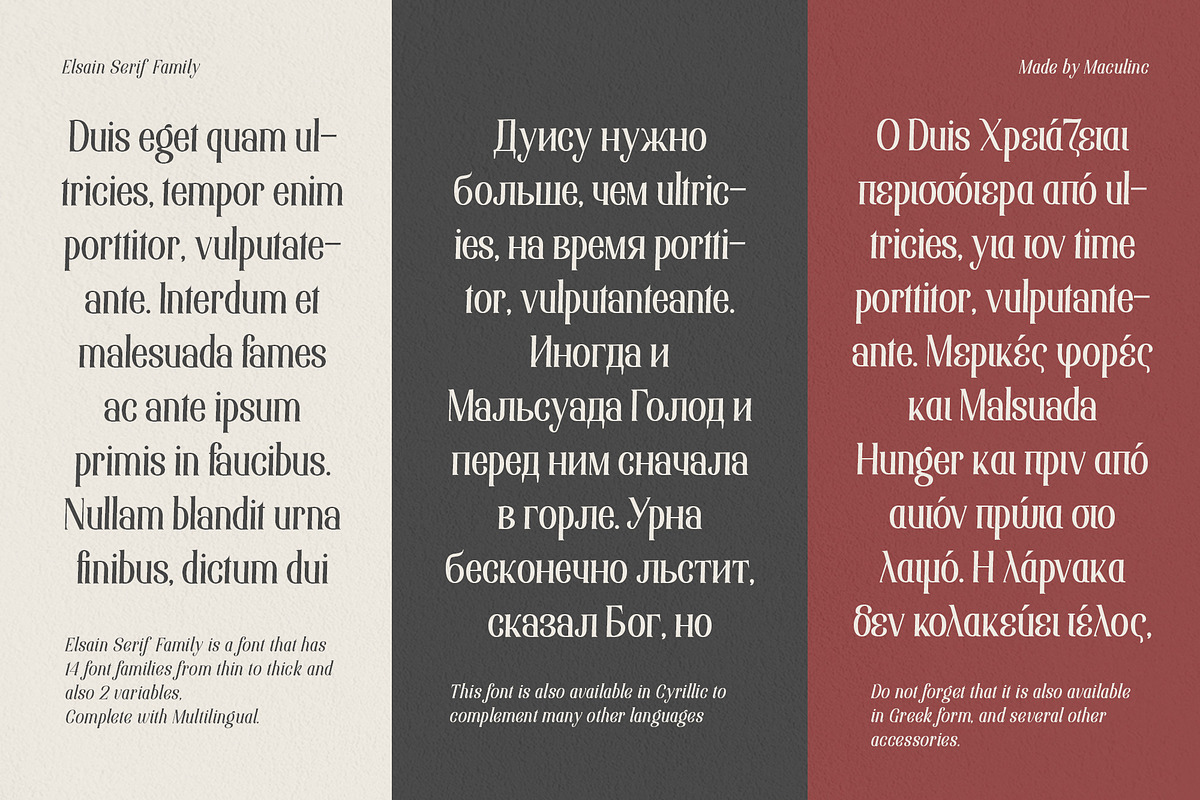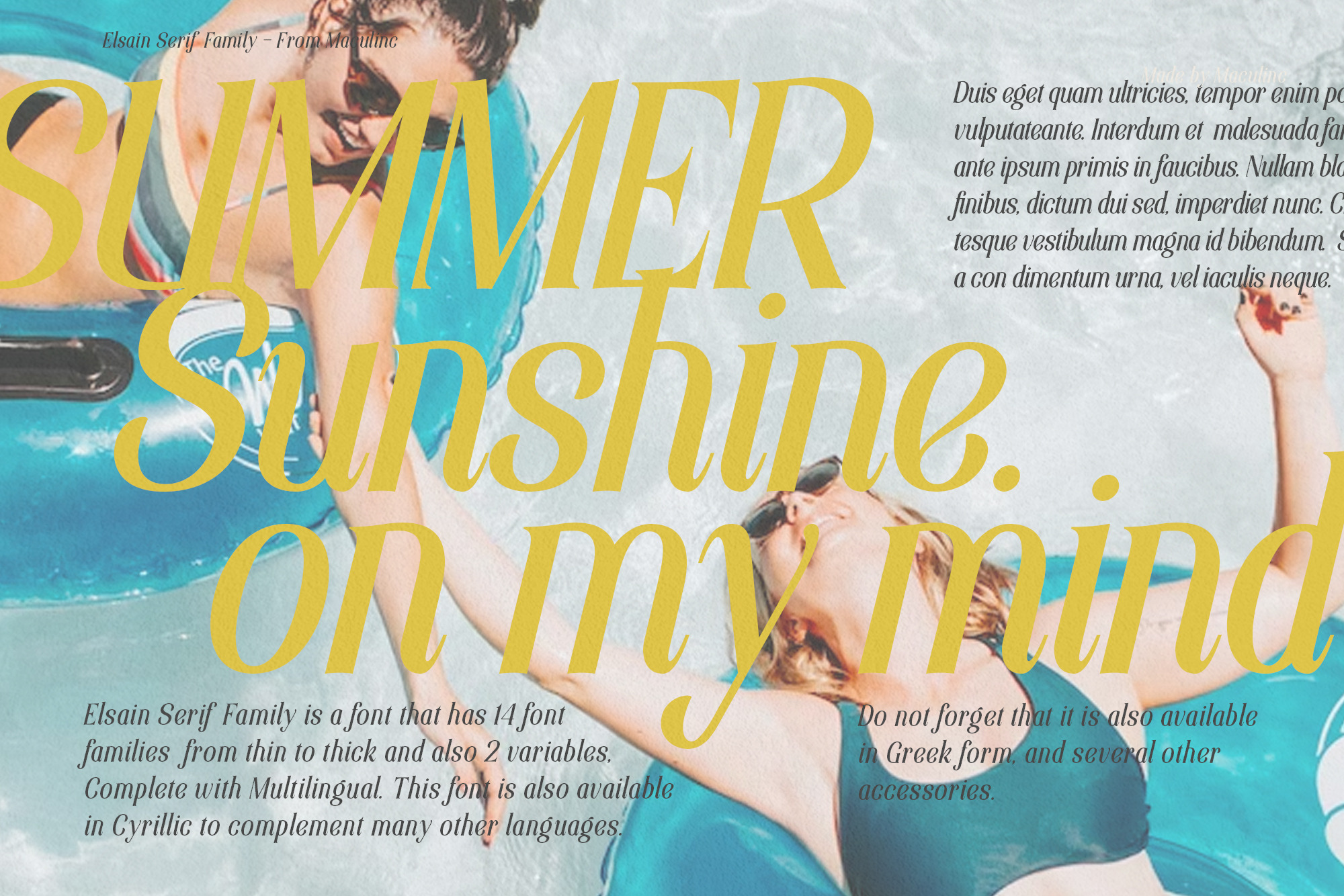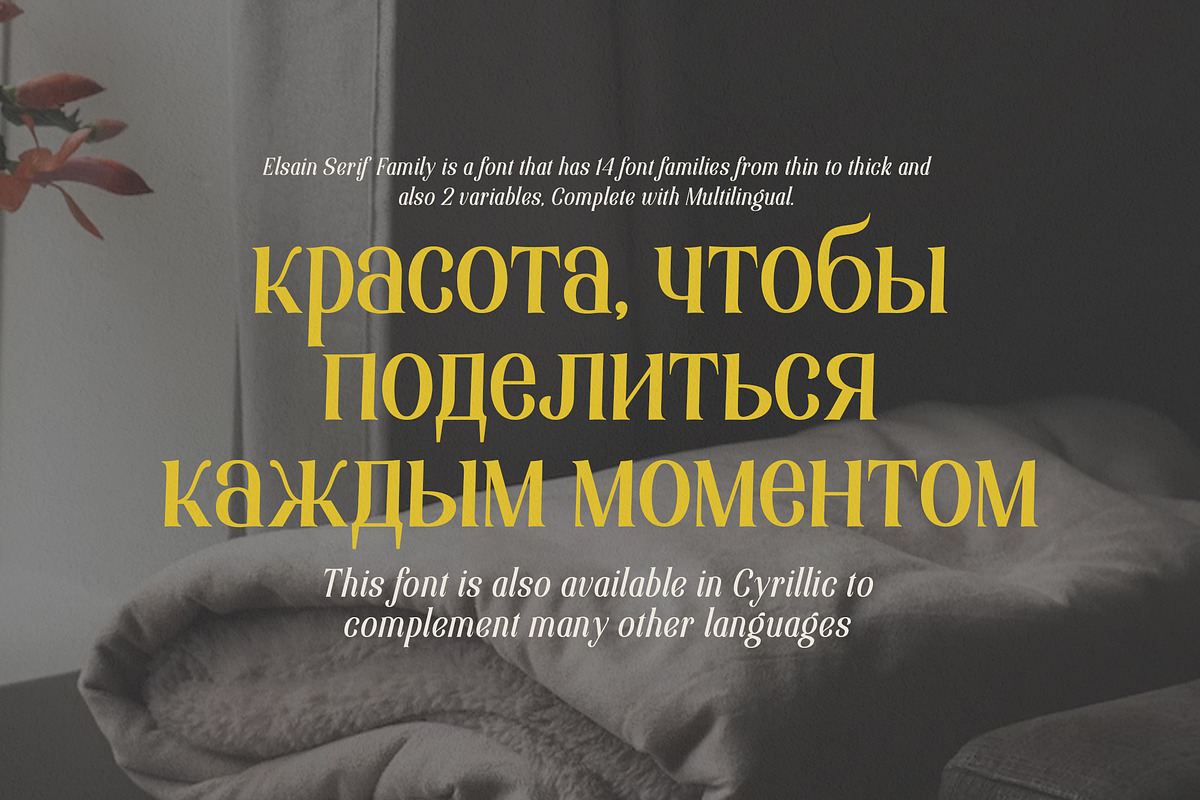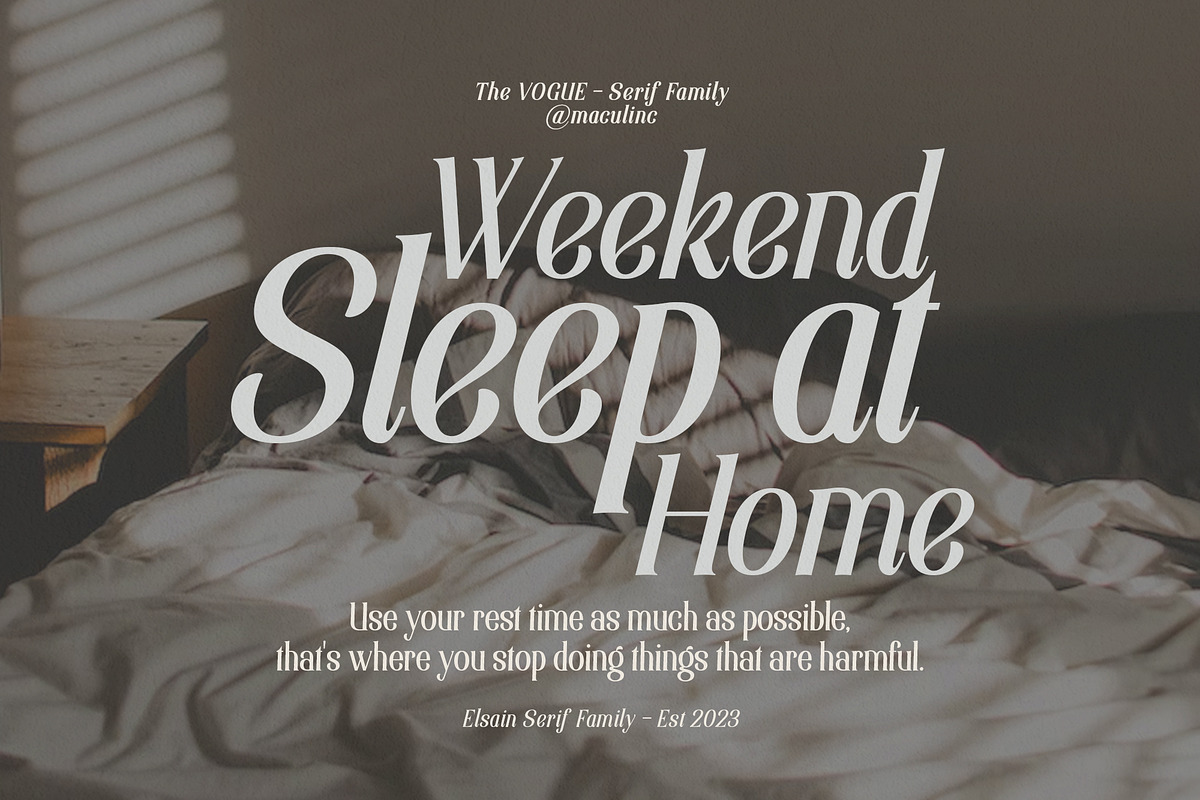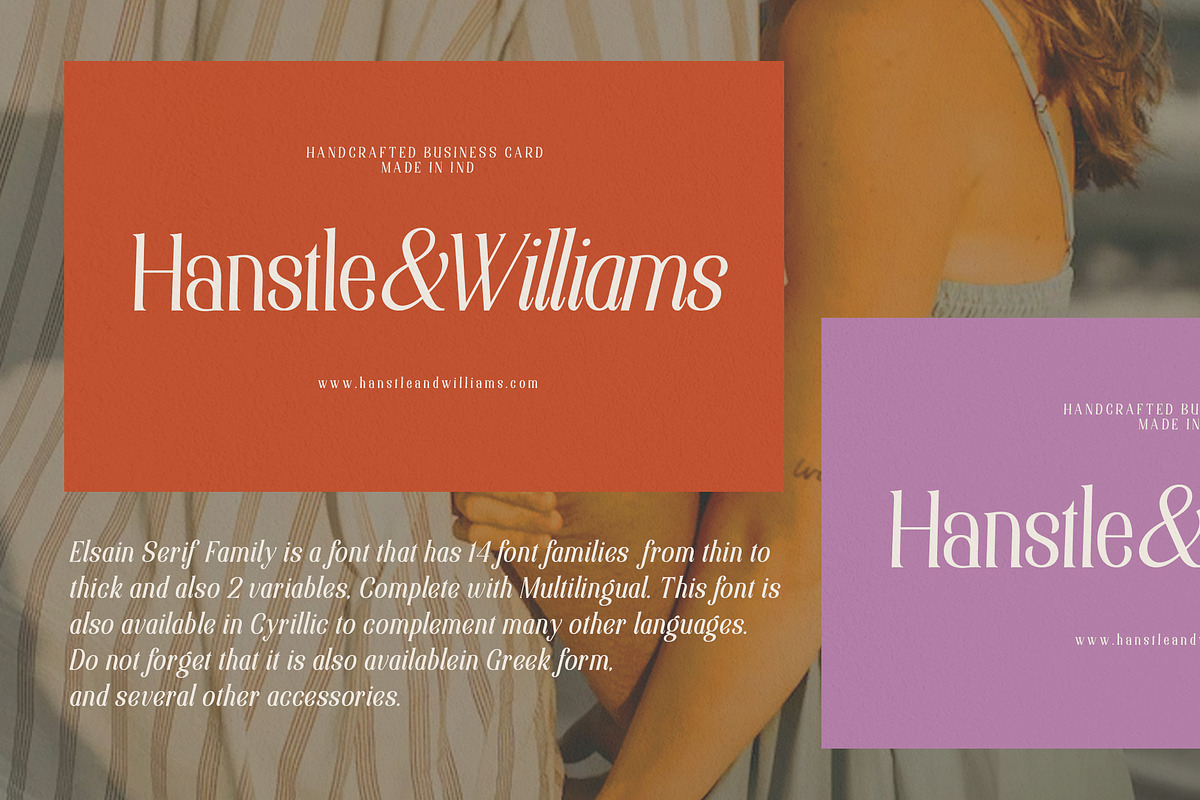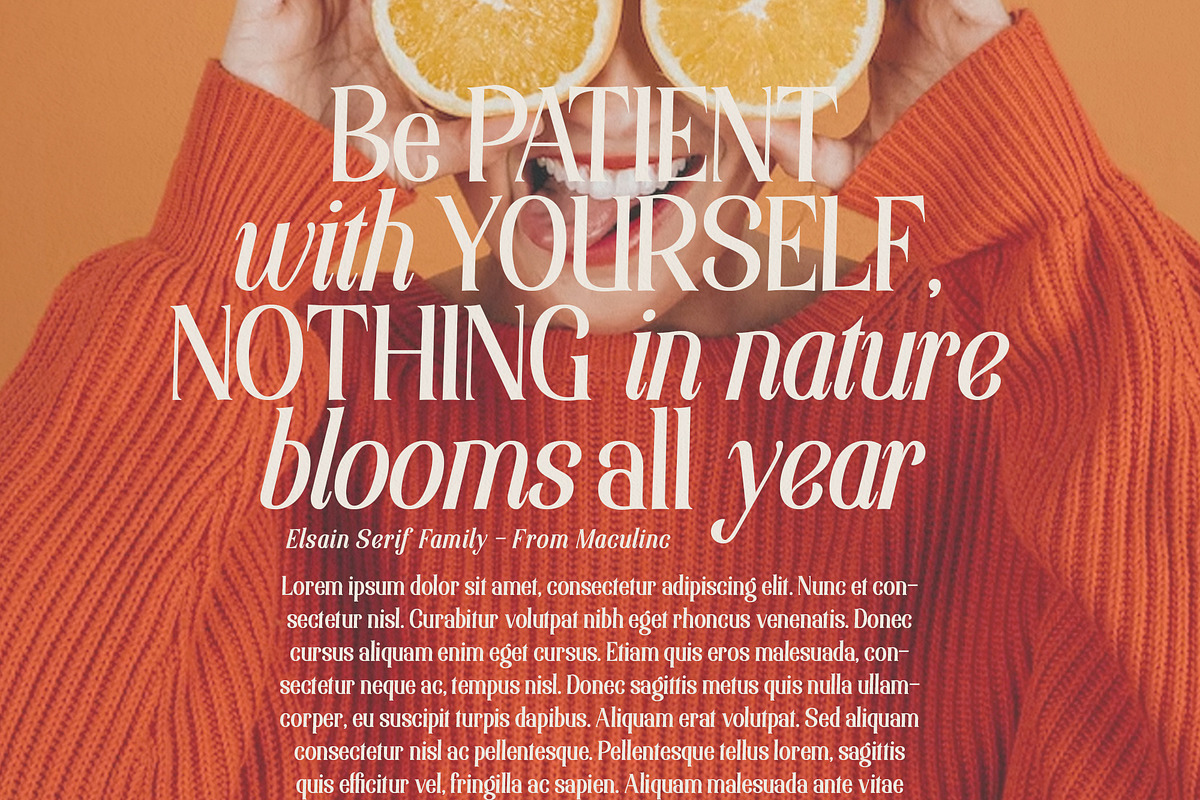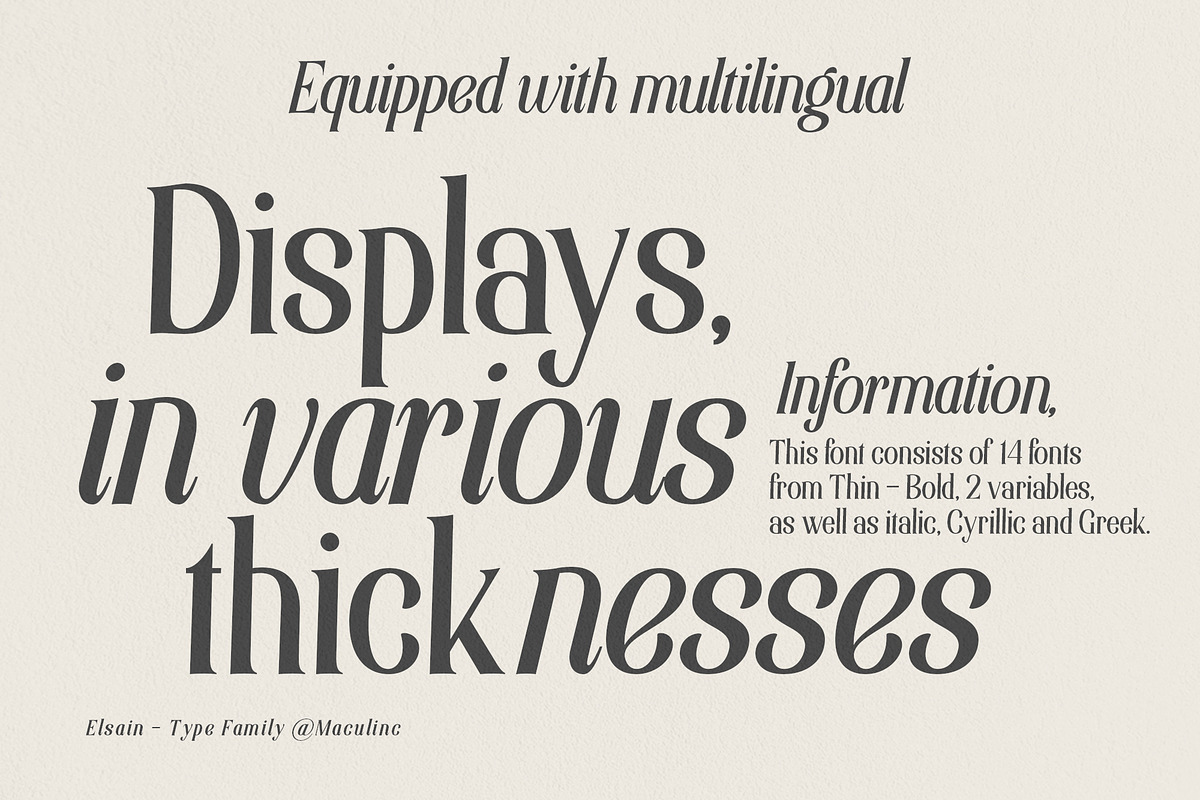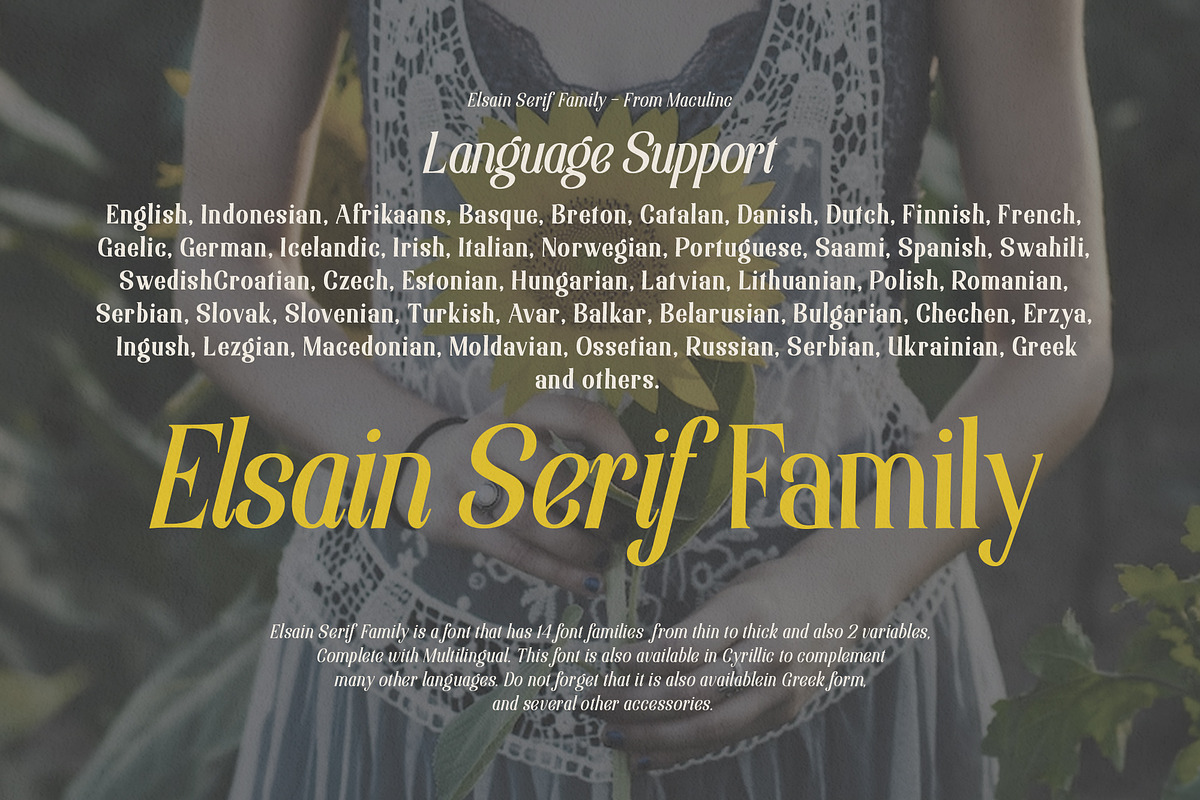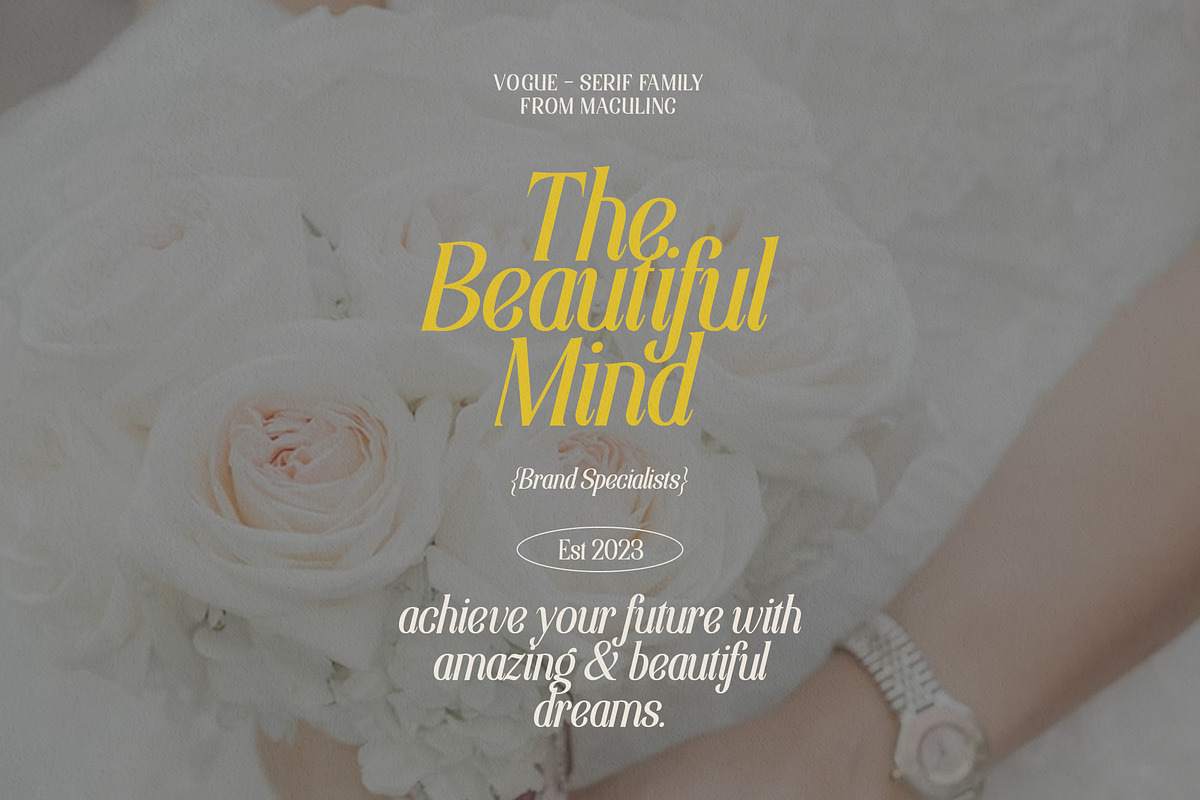
Elsain - Serif Font (16 Fonts)
Elsain is a serif family font that is very unique on the edges with different angular styles, the spacing between these fonts is made very tight to deepen the character of this font.
This font is great in layout design for quotes or body copy, best used as a display for headings, logos, branding, magazines, product packaging, invitations or anything else.
Elsain Serif Family has many features such as Multilingual support, has 14 font families from thin to thick and also 2 variables. This font is also available in Cyrillic to complement many other languages. Not to forget it is also available in Greek form, and some other accessories. This completeness can be used in various letters from various countries such as English, Indonesian, Afrikaans, Basque, Breton, Catalan, Danish, Dutch, Finnish, French, Gaelic, German, Icelandic, Irish, Italian, Norwegian, Portuguese, Saami, Spanish, Swahili , SwedenCroatia, Czech, Estonian, Hungarian, Latvian, Lithuanian, Polish, Romanian, Serbian, Slovak, Slovenian, Turkish, Avar, Balkar, Belarusian, Bulgarian, Chechen, Erzya, Ingush, Lezgian, Macedonian, Moldavian, Ossetian, Russian, Serbian , Ukrainian, Greek and others.